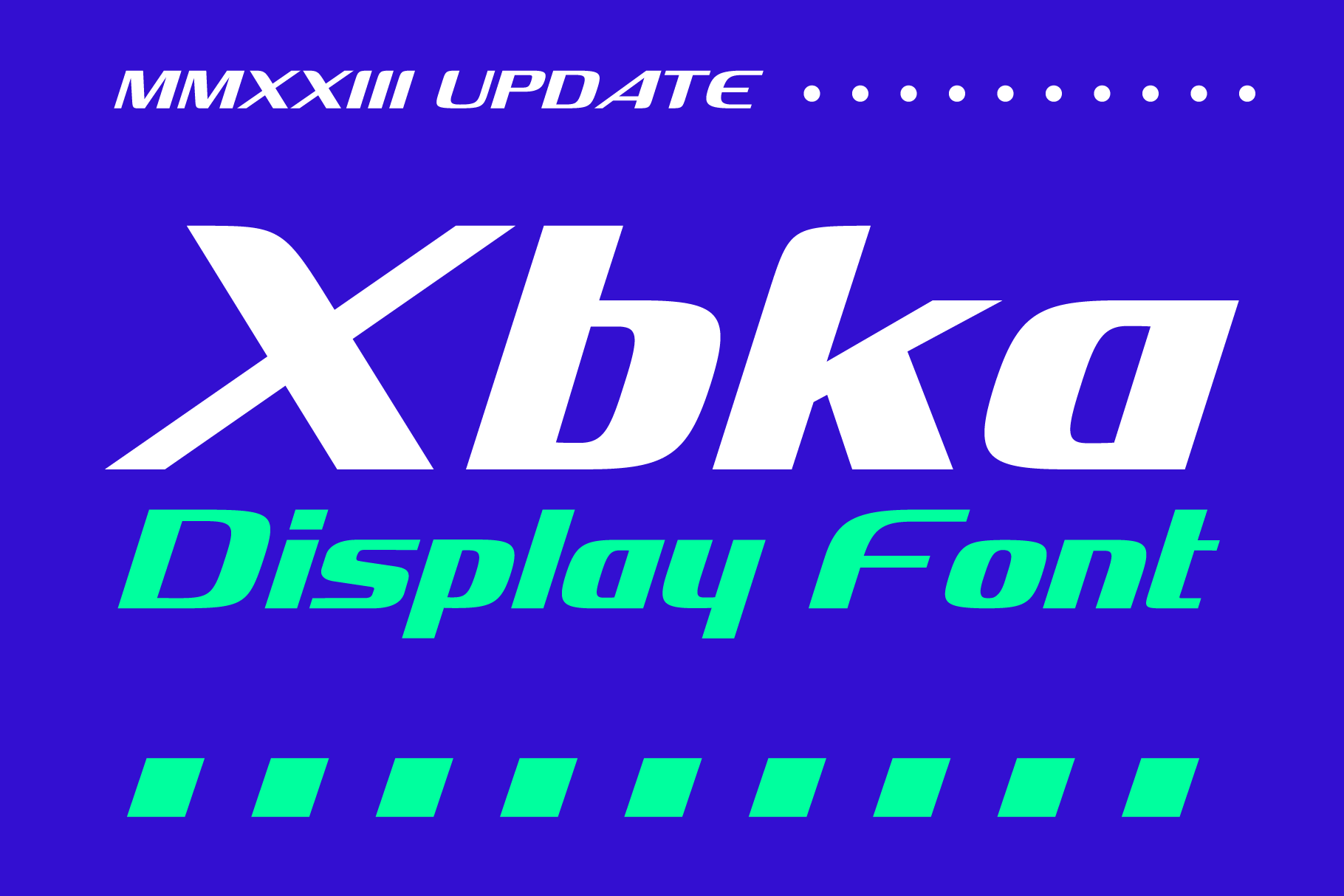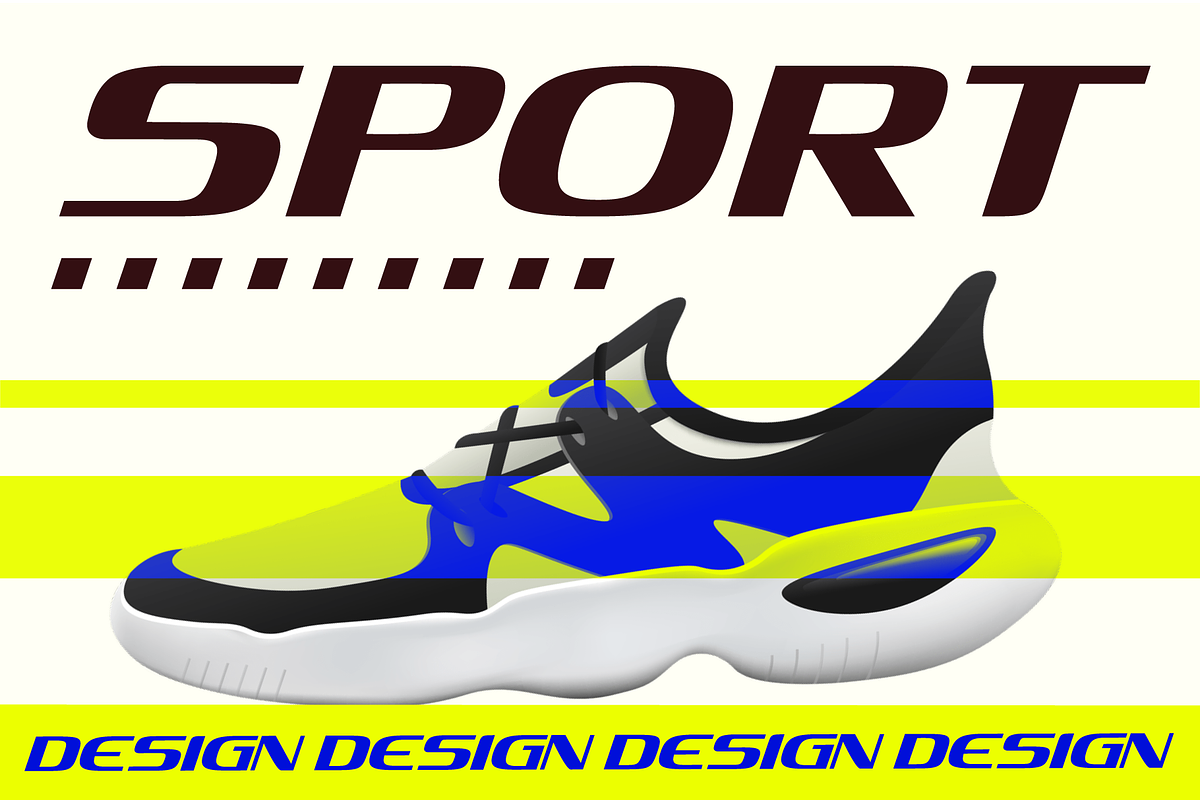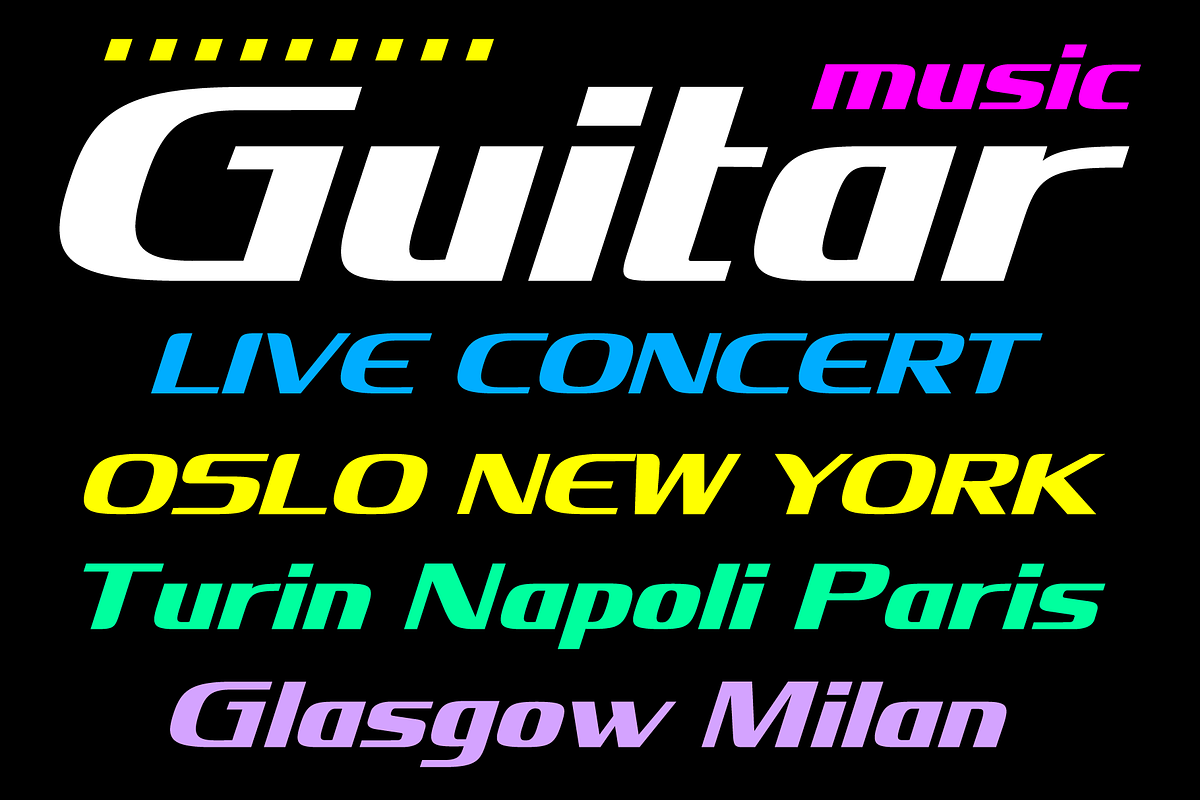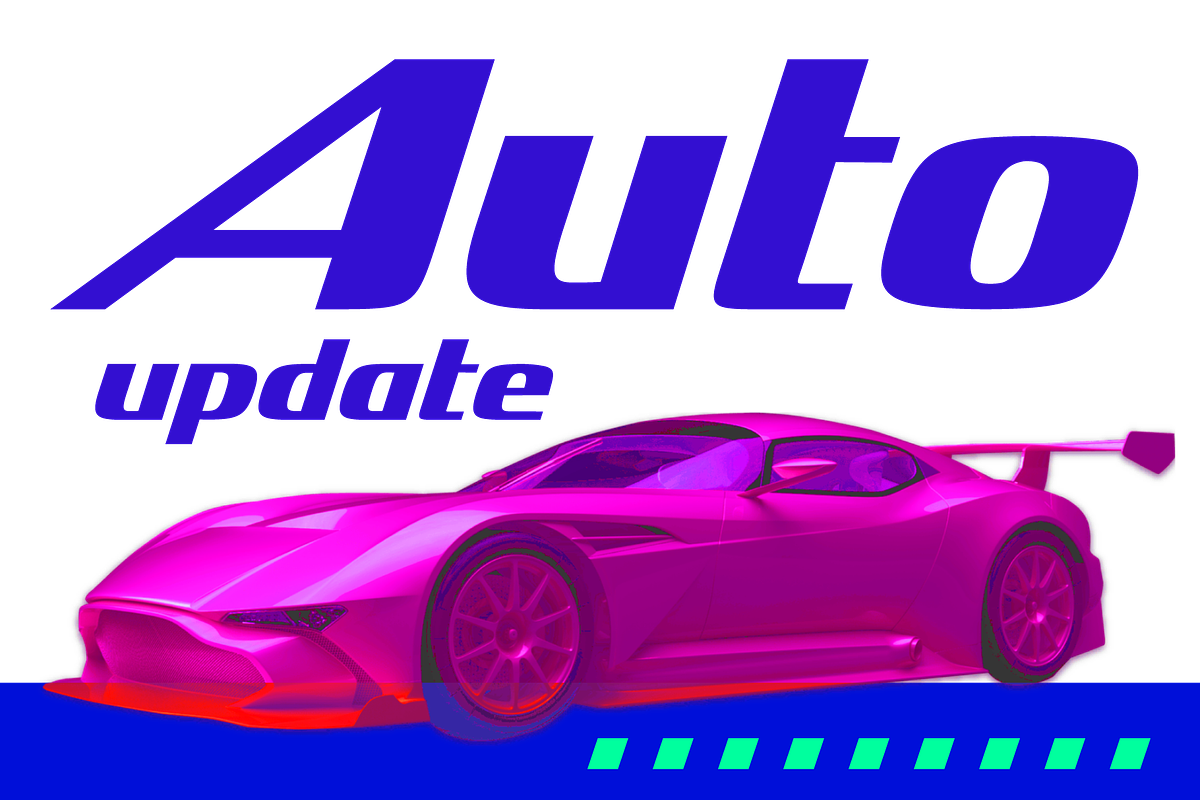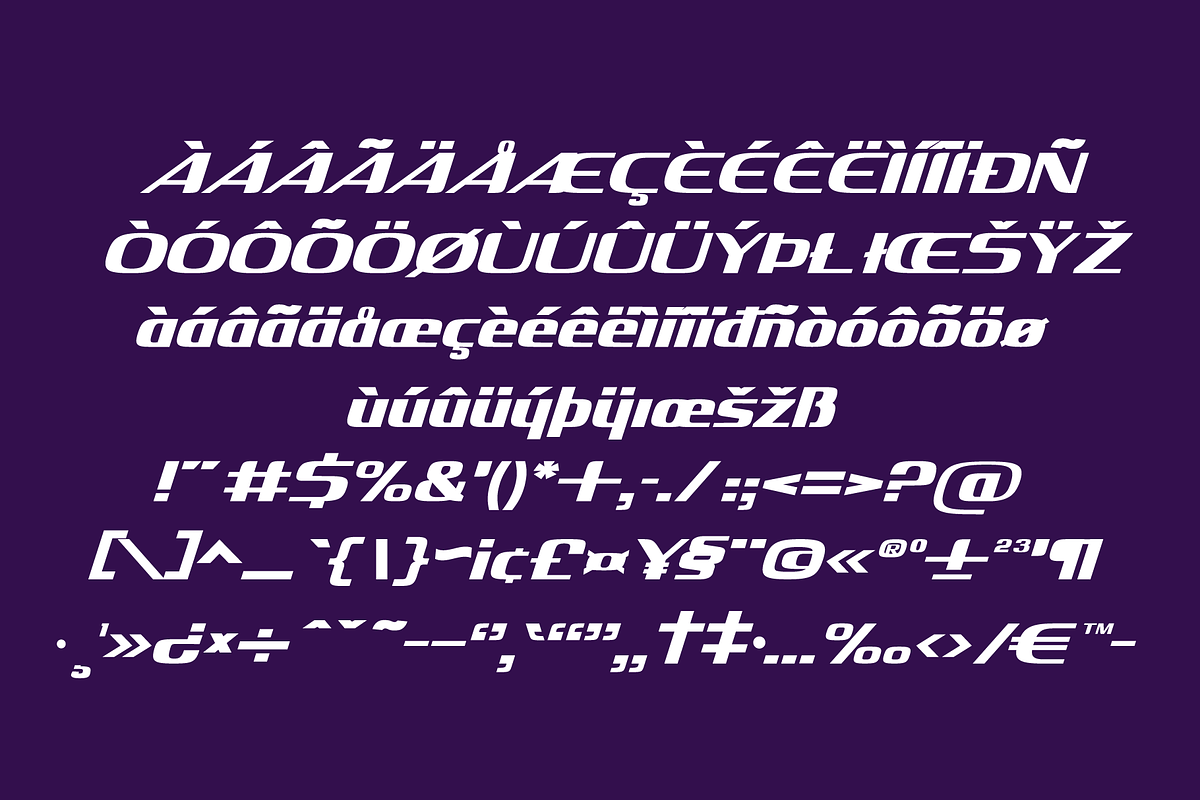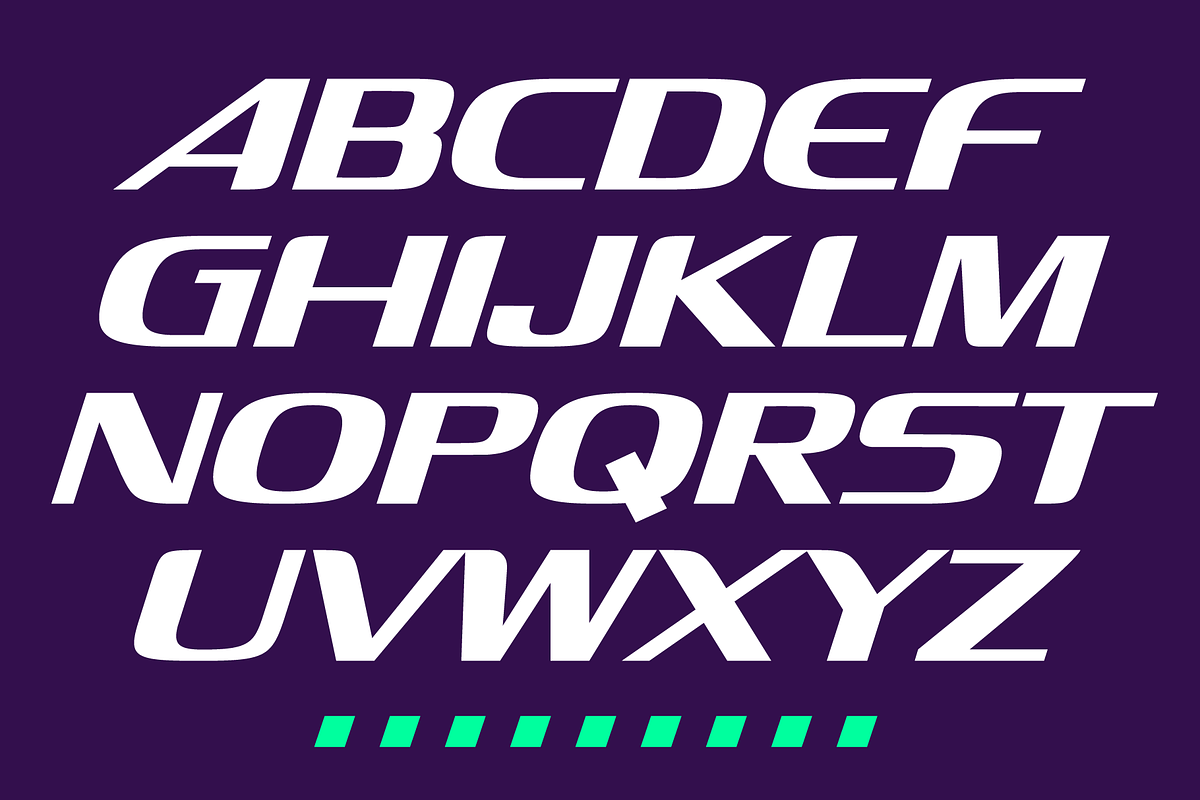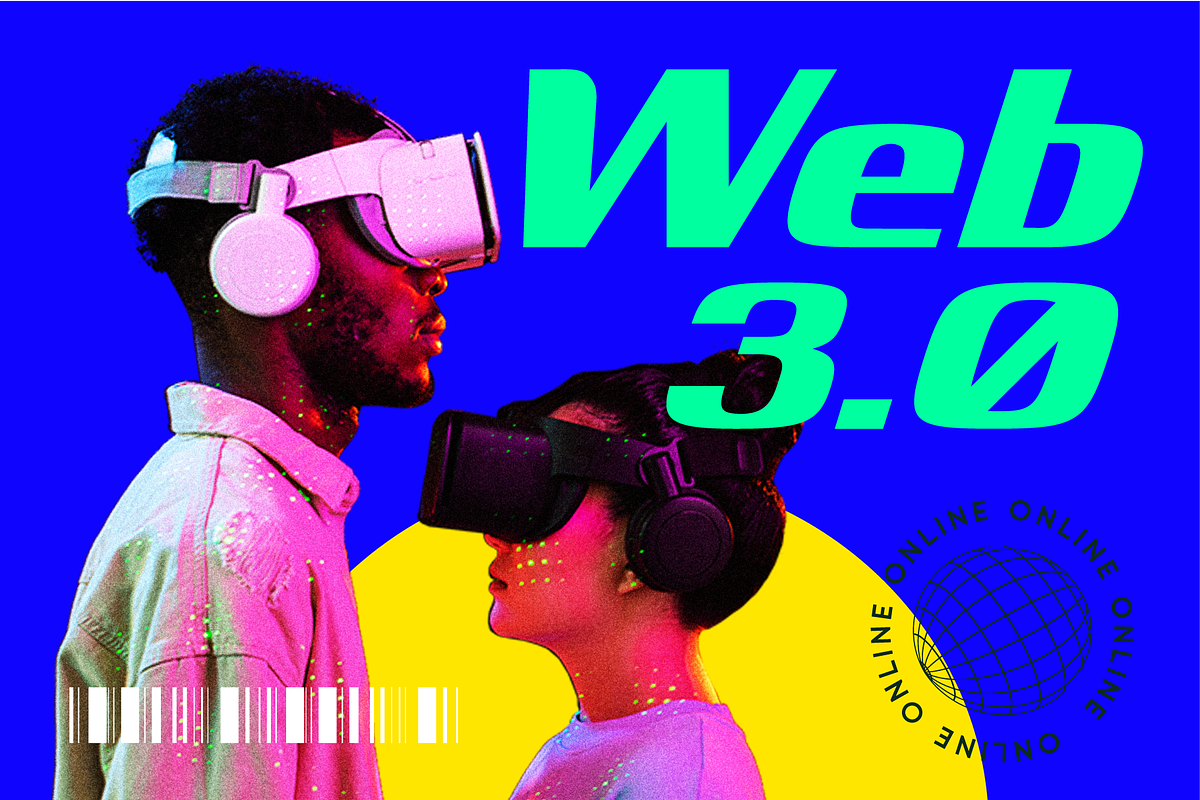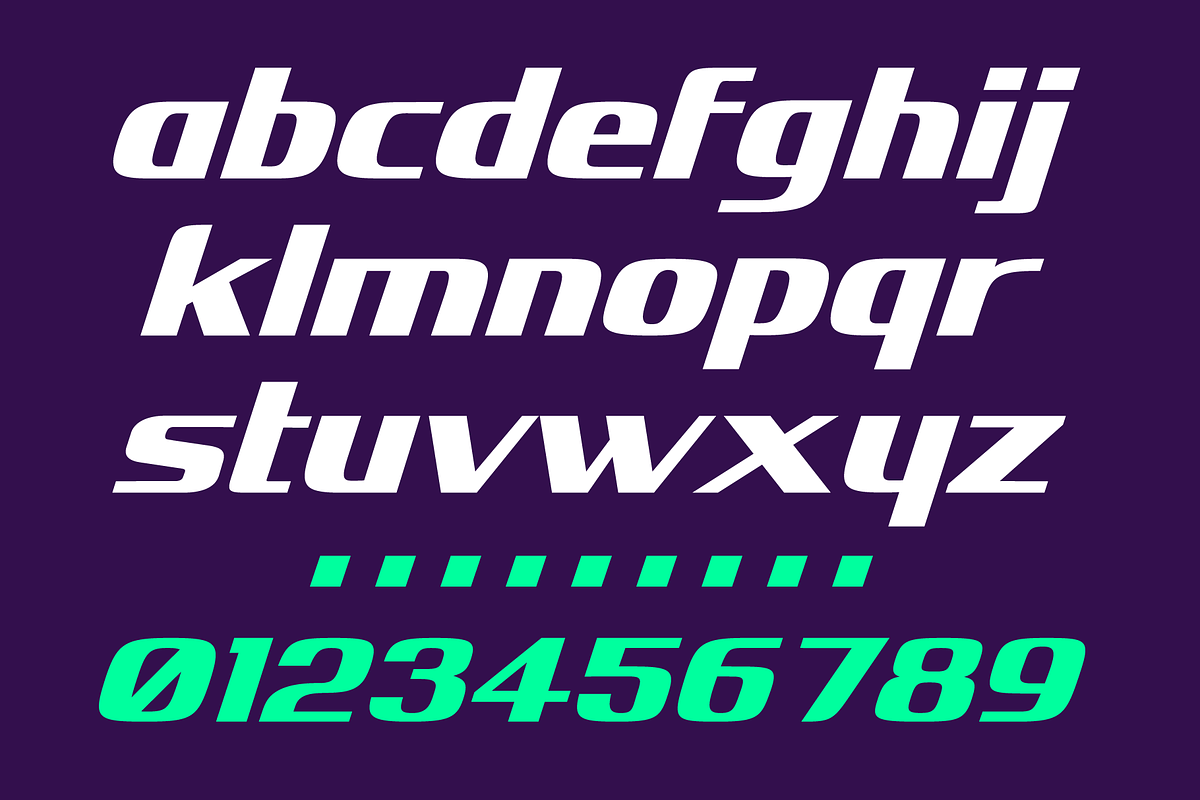
Xbka font
Introducing Xbka, the new must-have font for anyone looking for a vintage-modern, futuristic, cool, and sporty font. This display font is perfect for those looking to make a statement with their headlines or branding.
With its unique blend of modern and vintage styles, Xbka is the perfect choice for anyone looking to give their designs a fresh and youthful feel. Its italic style adds an extra touch of elegance and creativity to any project.
Whether you're designing a logo for a new sports brand, creating eye-catching headlines for a magazine or website, or adding a touch of urban style to your marketing materials, Xbka is the perfect choice.
This font is great for use in a wide range of applications, including advertising, branding, web design, and print design. It's a versatile font that can be used in a variety of contexts, from sports and fitness to streetwear and fashion.